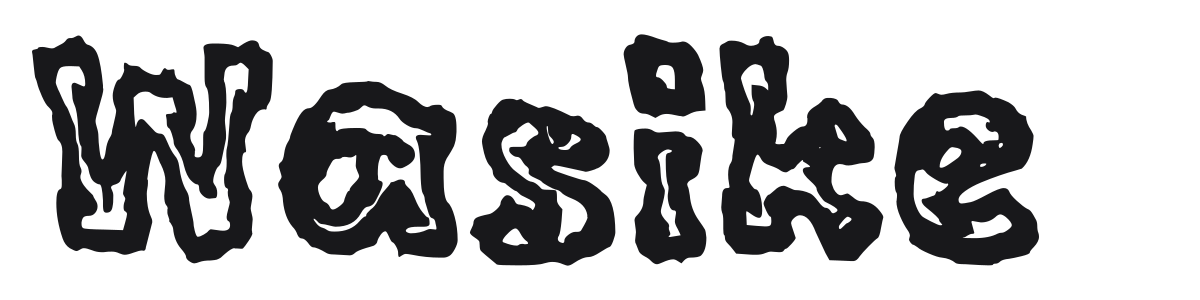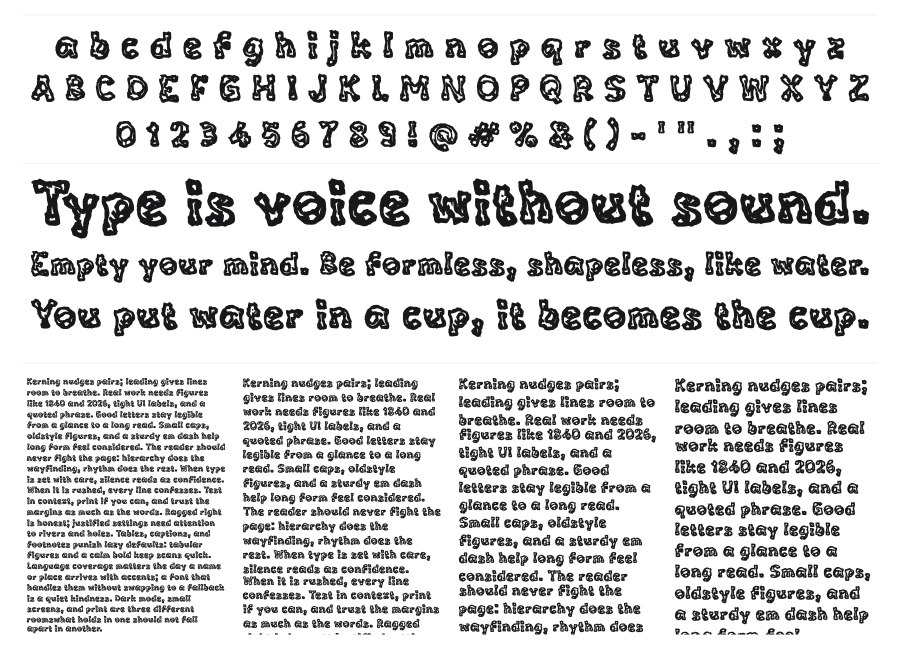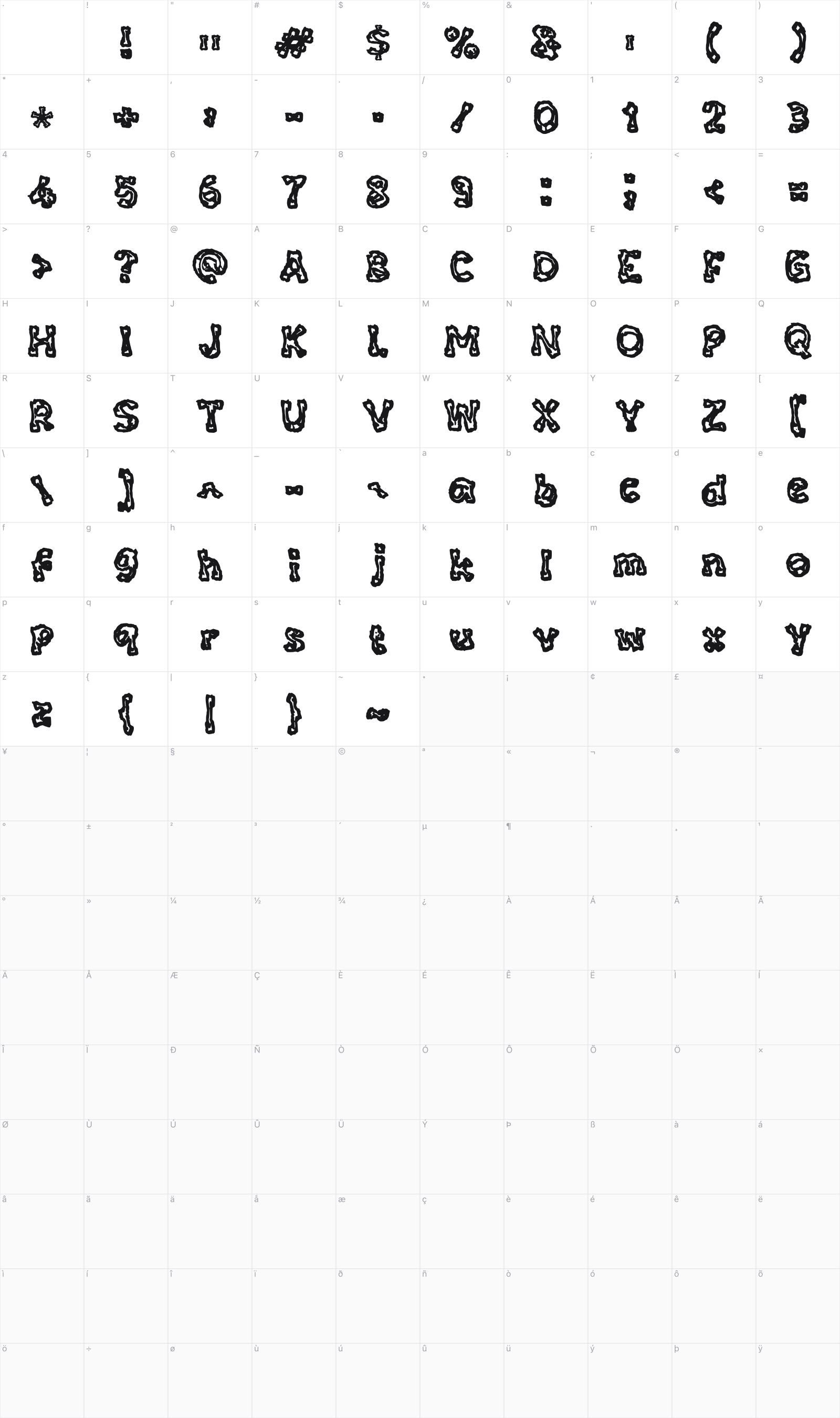
Wasike
Wasike is a bold eroded display font with thick, heavily distressed characters that look corroded and worn from the inside out. The rounded underlying structure gives it a playful foundation, but the rough pitted surface texture pulls it firmly into grungy, underground territory. Strong for posters, band merchandise, and any context that needs raw visual energy.